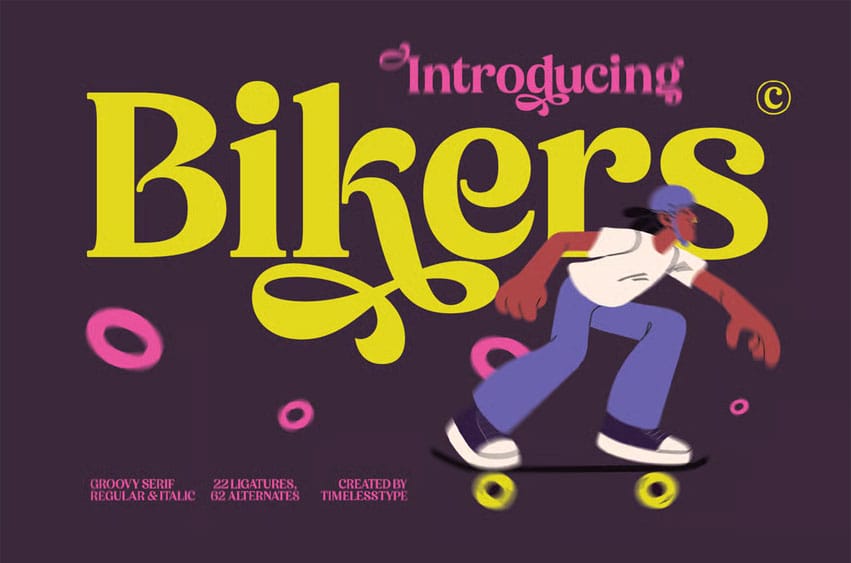
Bikers Font is a groovy serif display font built with bold retro shapes, playful curves, and lively swashes that instantly grab attention. Its chunky serif structure mixed with dynamic movement gives it a fun, youthful personality — perfect for skate culture, streetwear branding, music posters, retro merch, editorial headlines, logo lettering, and anything that needs that nostalgic-but-modern punch.
With 22 ligatures and 62 alternates, Bikers gives you endless room to experiment: extended swashes, funky letterforms, flowing connections, and expressive details that make every word feel like a custom logo. Whether you’re crafting bold display titles, groovy packaging, or energetic social media graphics, this font delivers character, style, and rhythm.